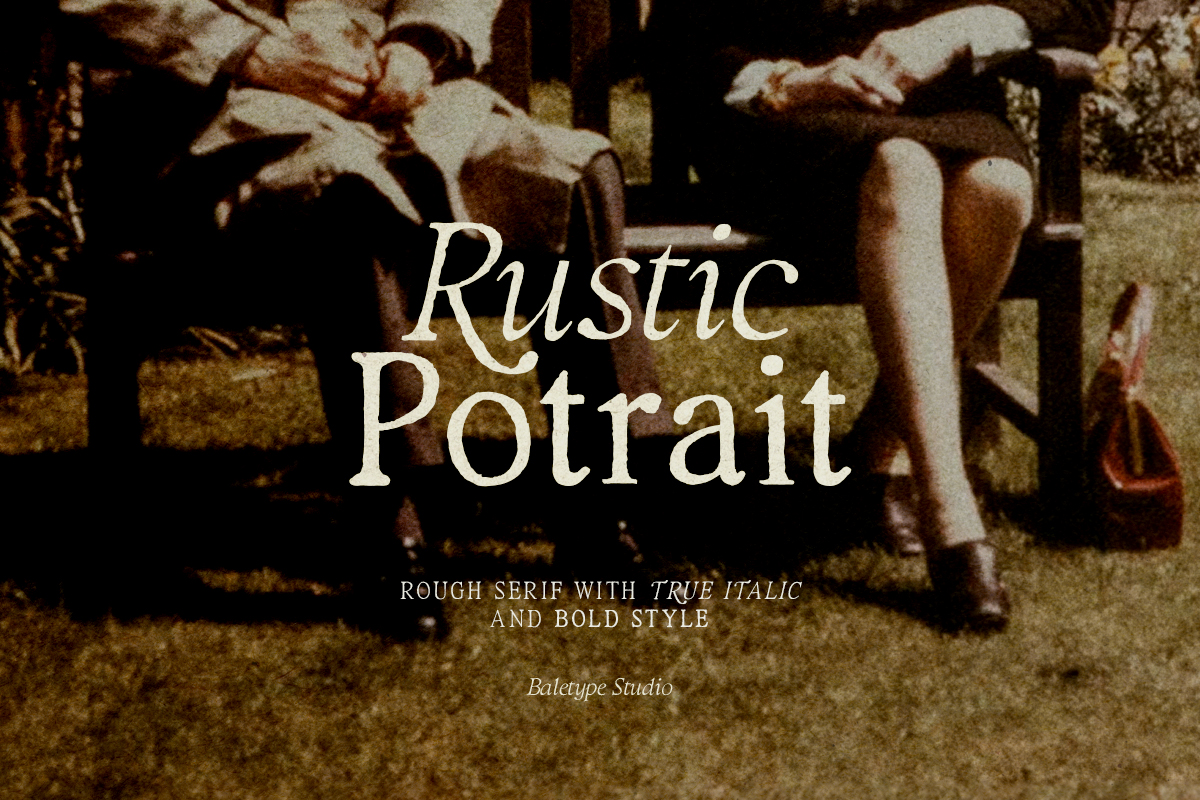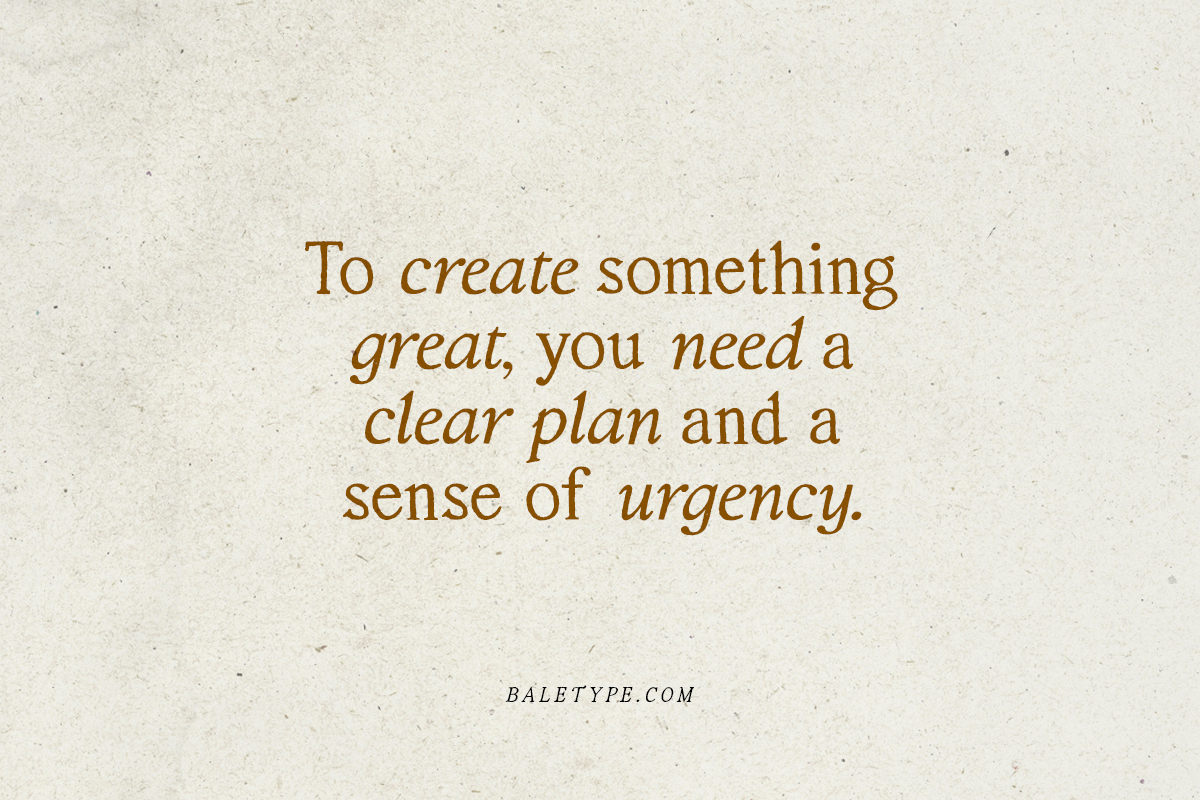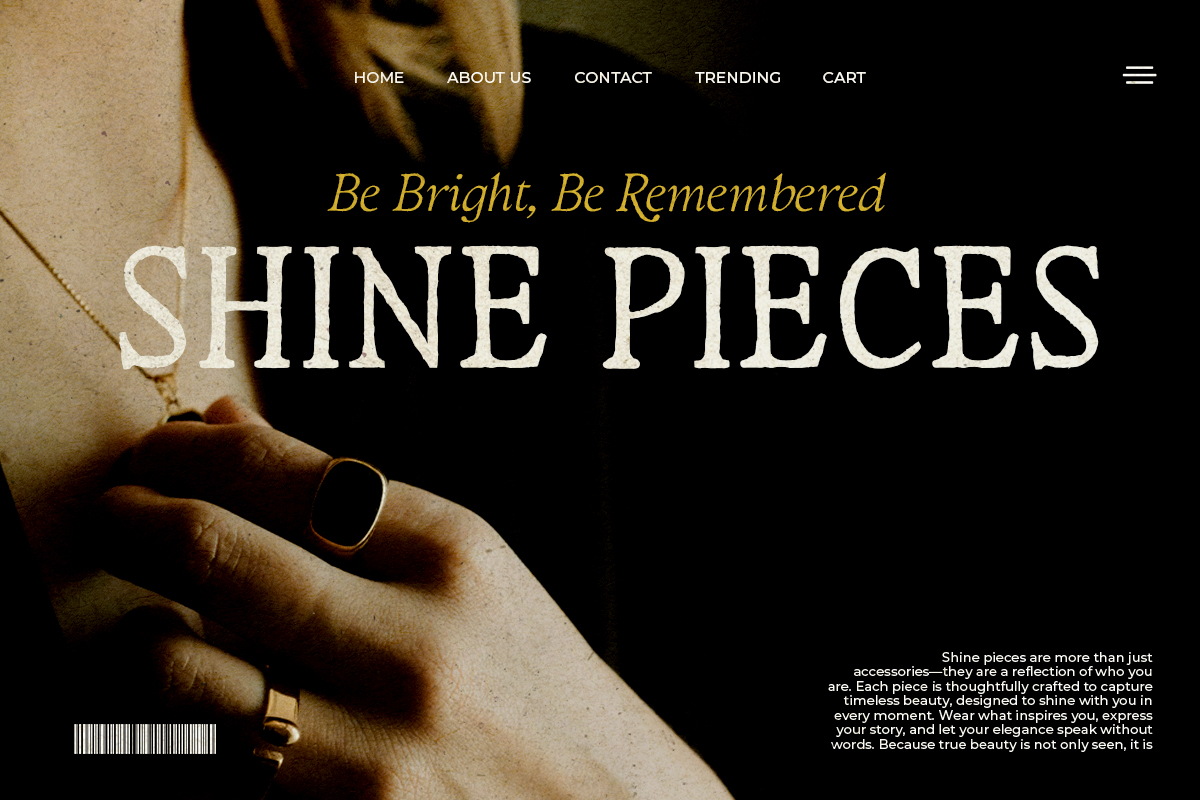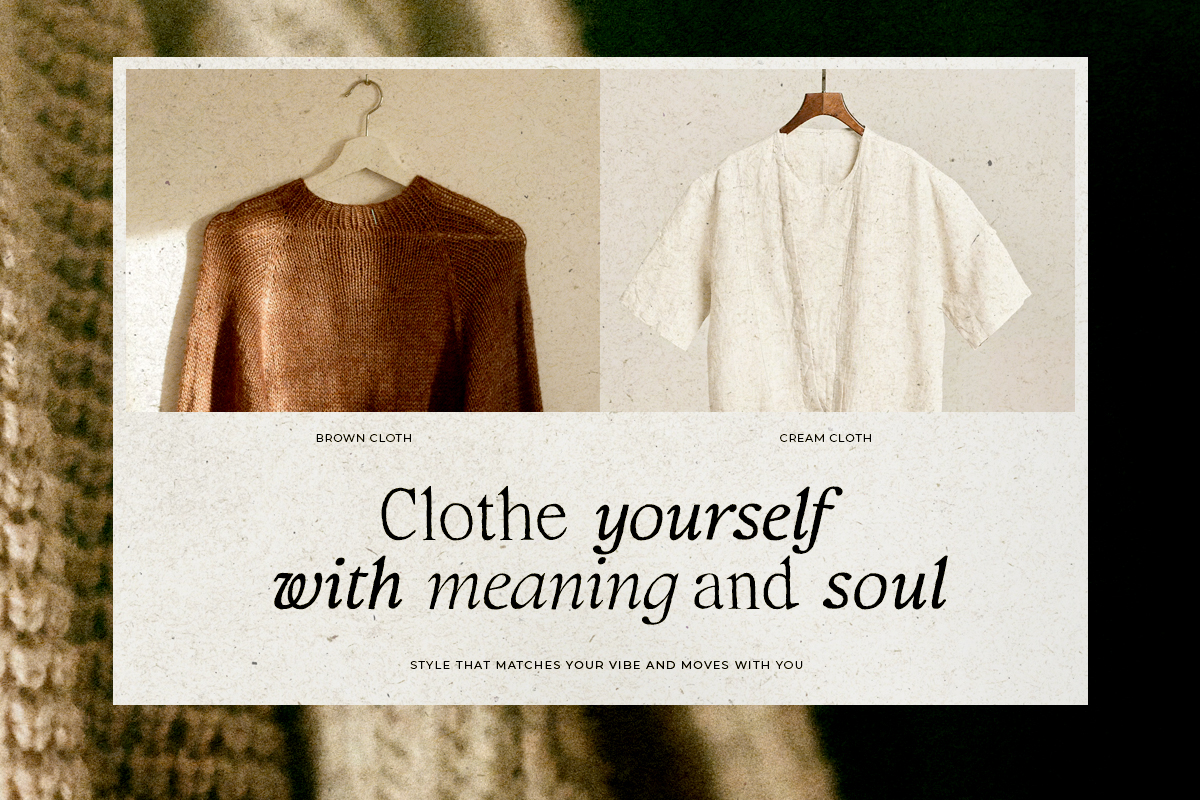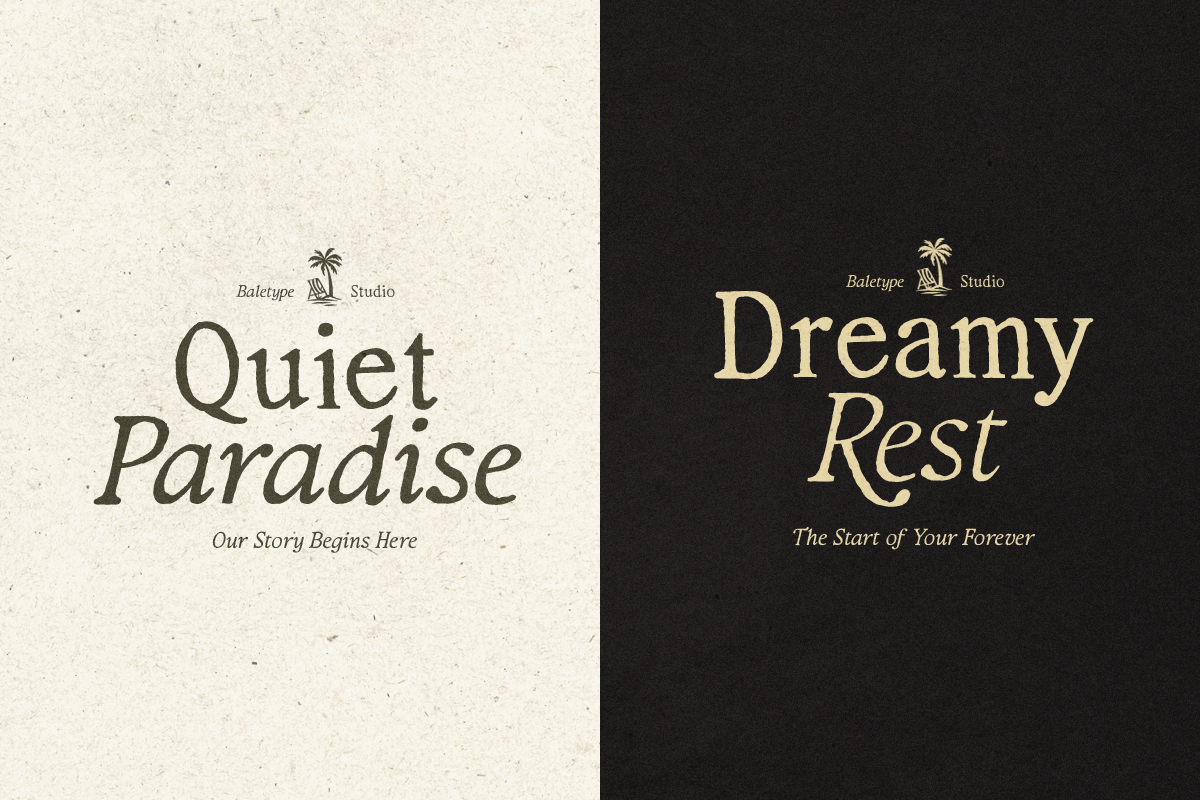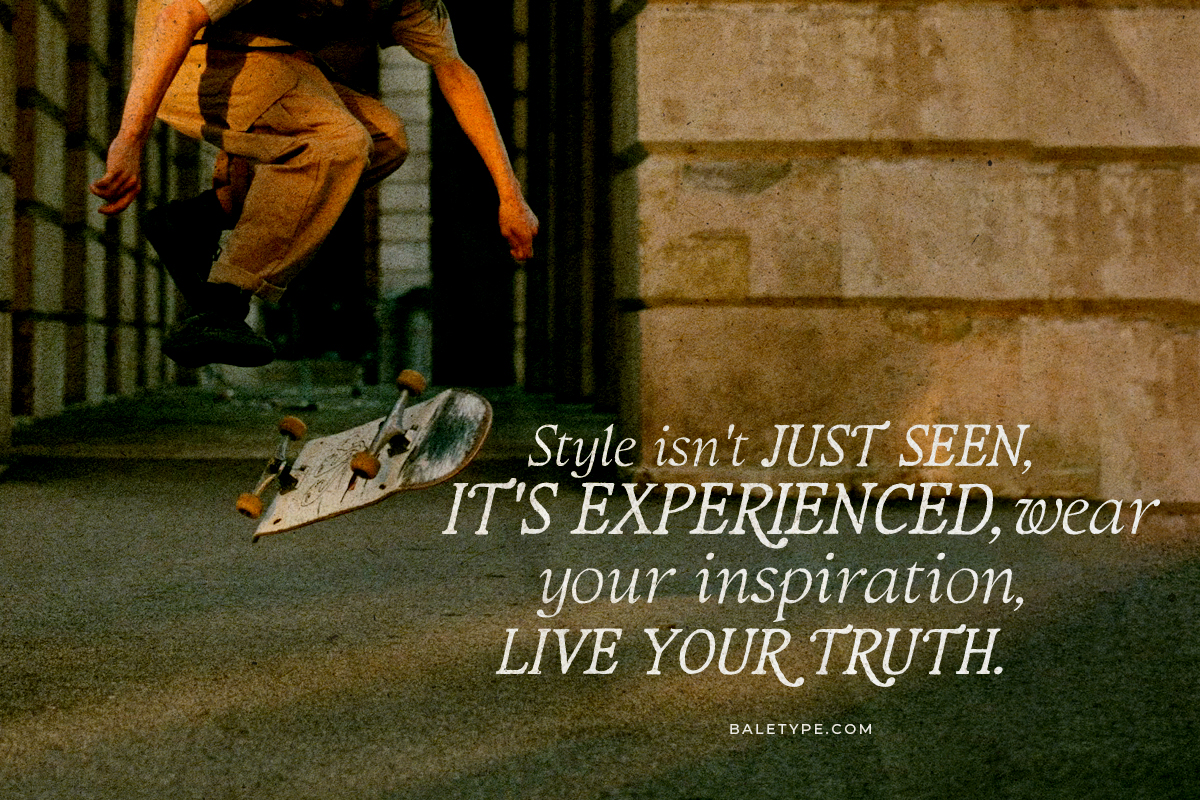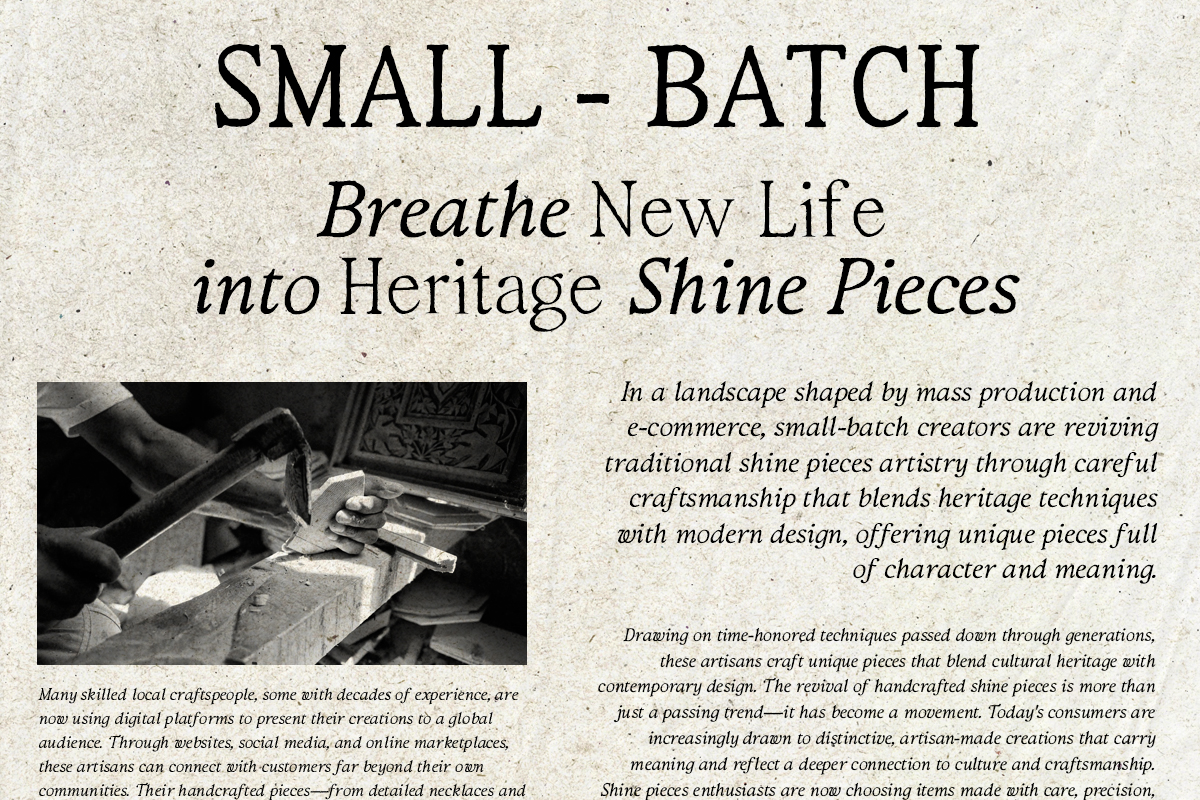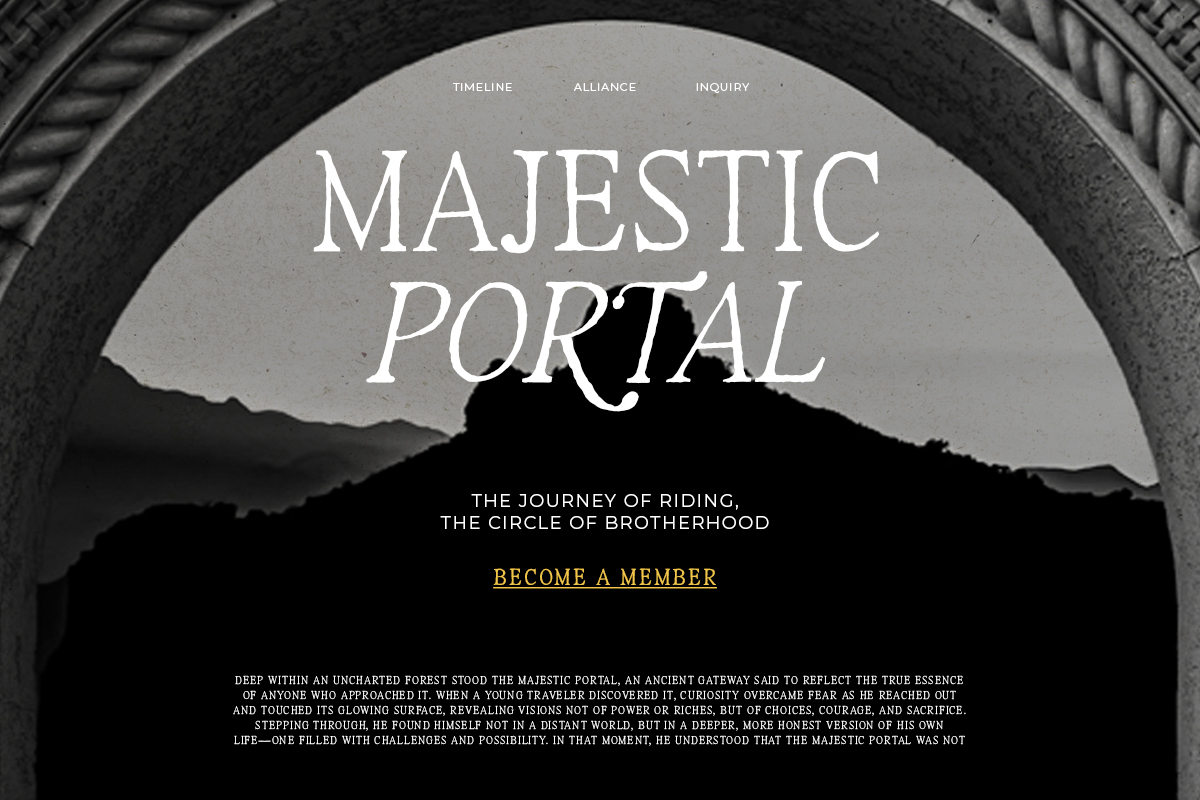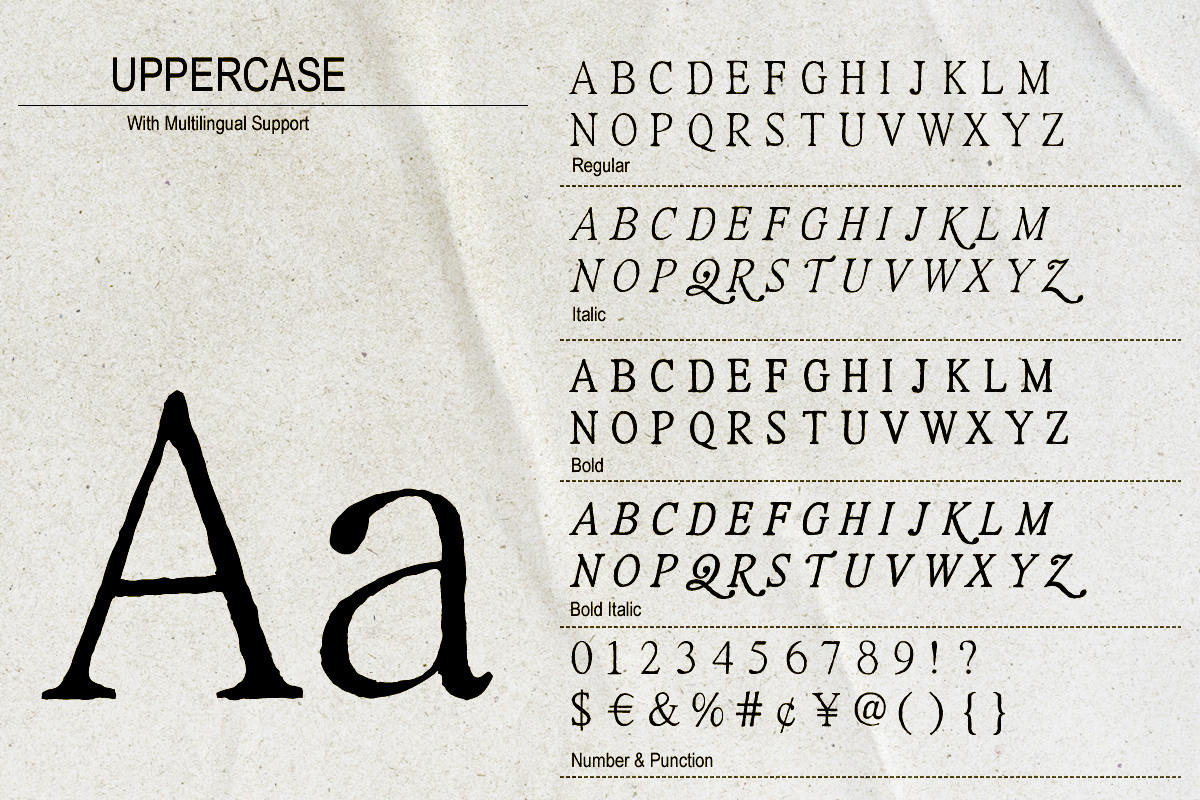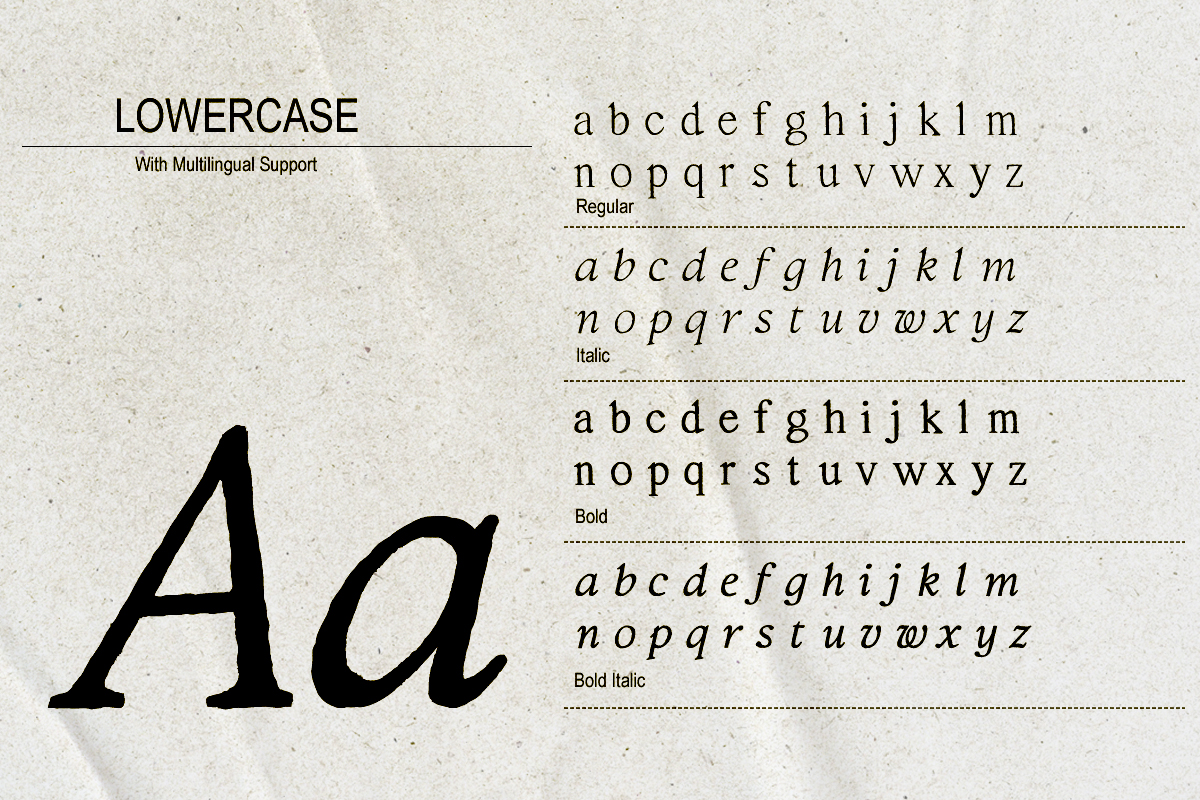
Rustic Portrait is a hand-lettered serif font family that captures the charm of handcrafted typography with its natural, textured, and slightly rough appearance. Designed to bring warmth and authenticity to your work, it is ideal for projects that need an organic and artisanal touch. The family includes Regular, Italic, Bold, and Bold Italic styles, offering flexibility for everything from branding and packaging to editorial layouts and presentations. With its versatile character and multilingual support, this font is a great choice for creating designs that feel both distinctive and approachable.
Rustic Portrait – Rough Serif Family
Rustic Portrait is a hand-lettered serif font family that captures the charm of handcrafted typography with its natural, textured, and slightly rough appearance.